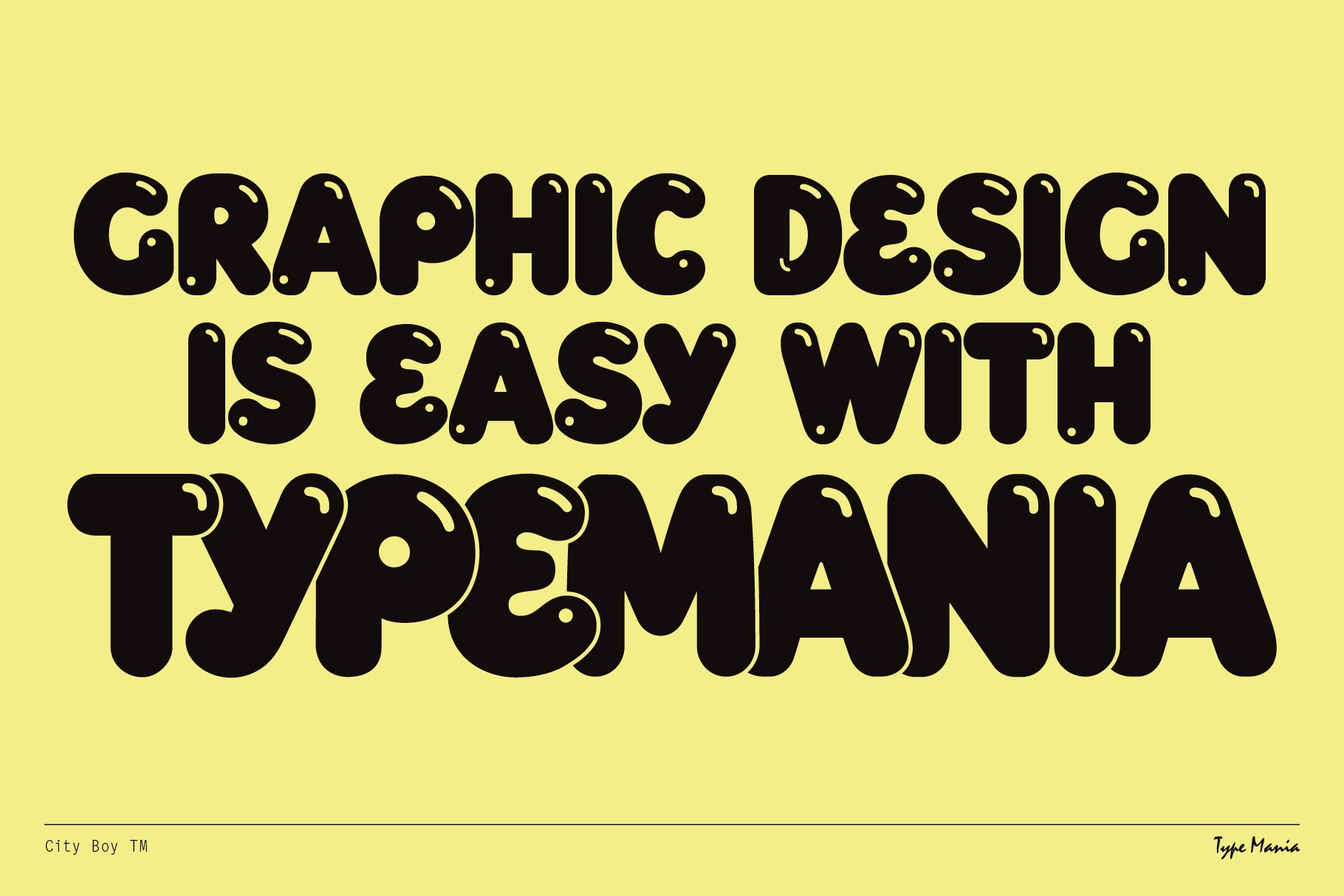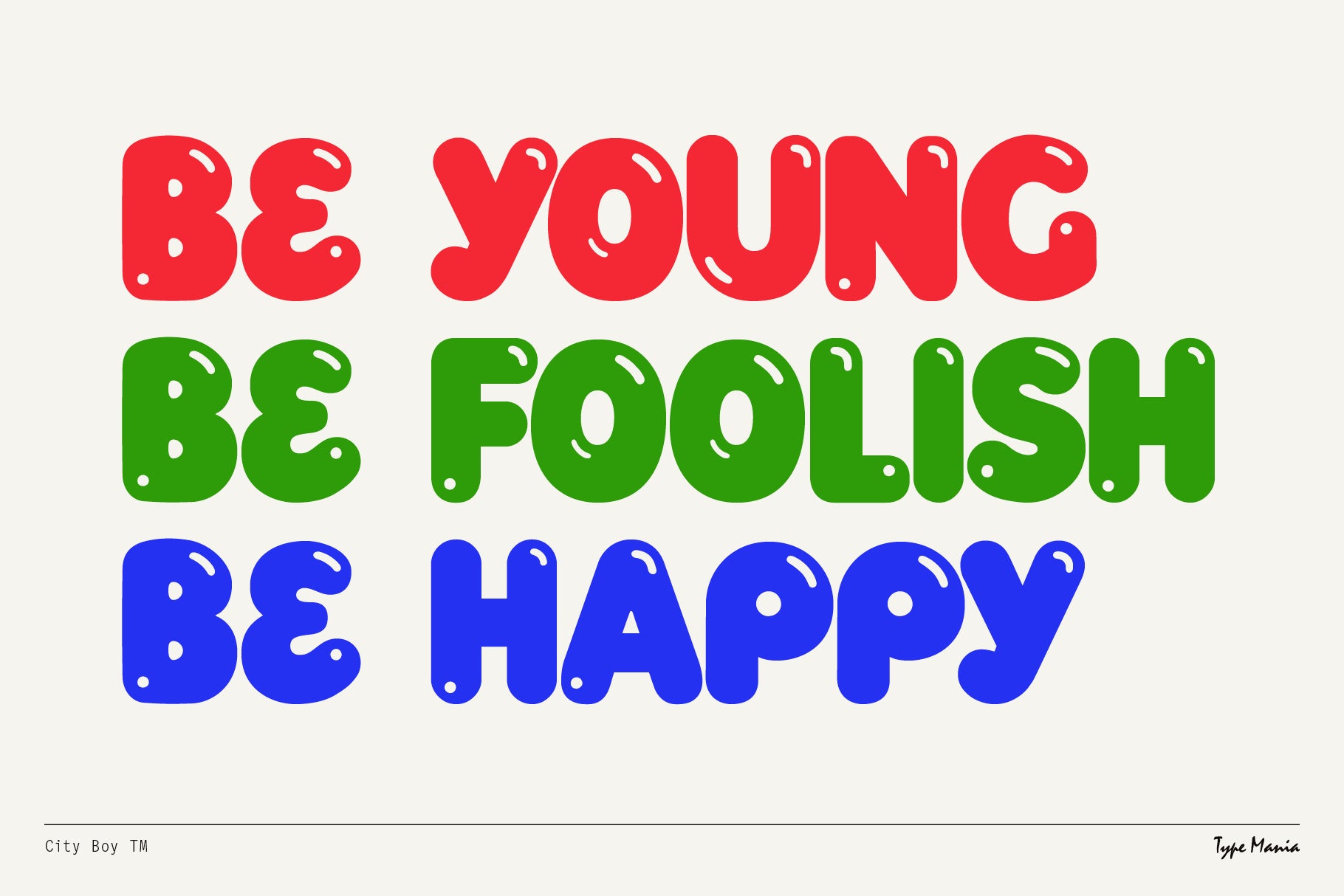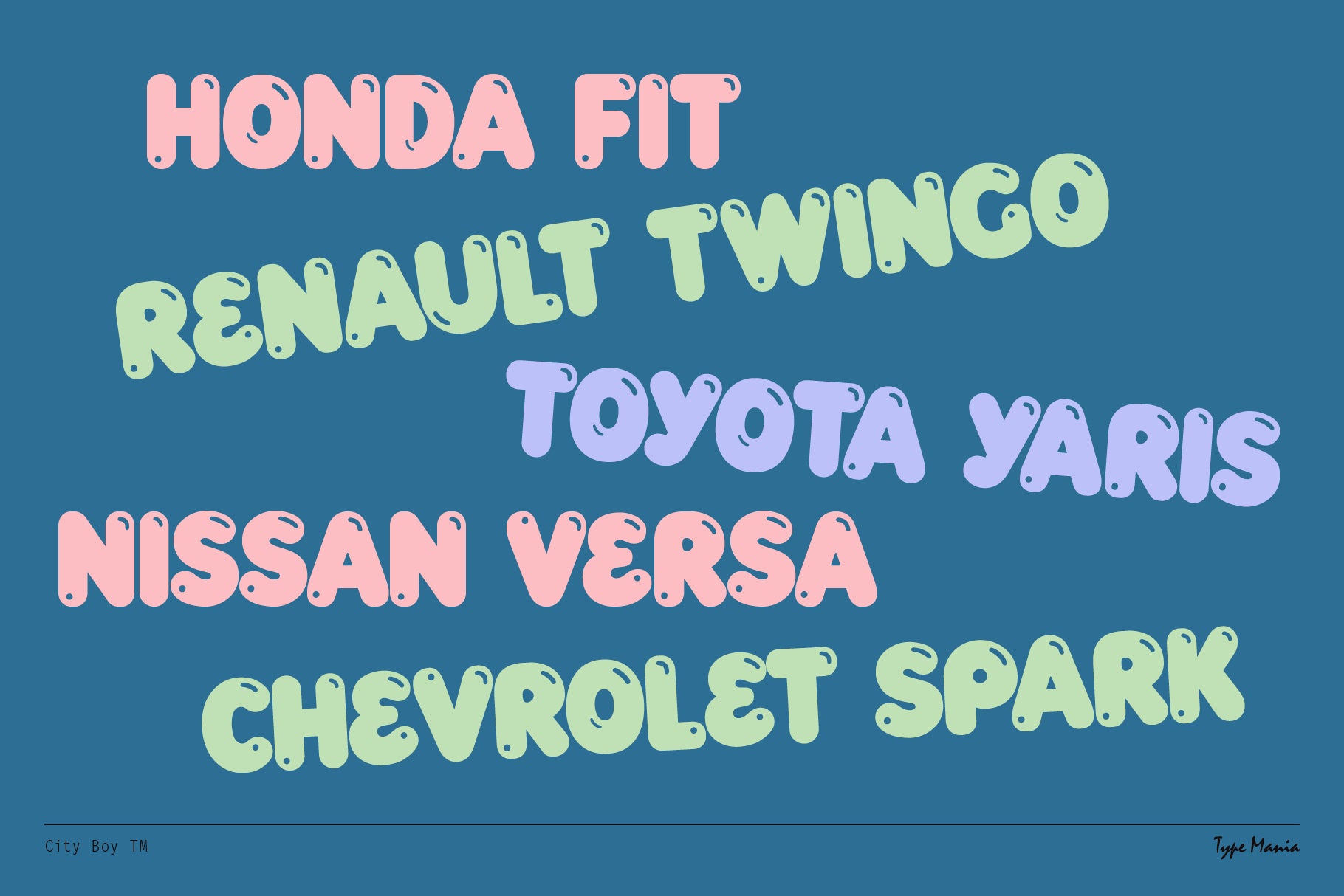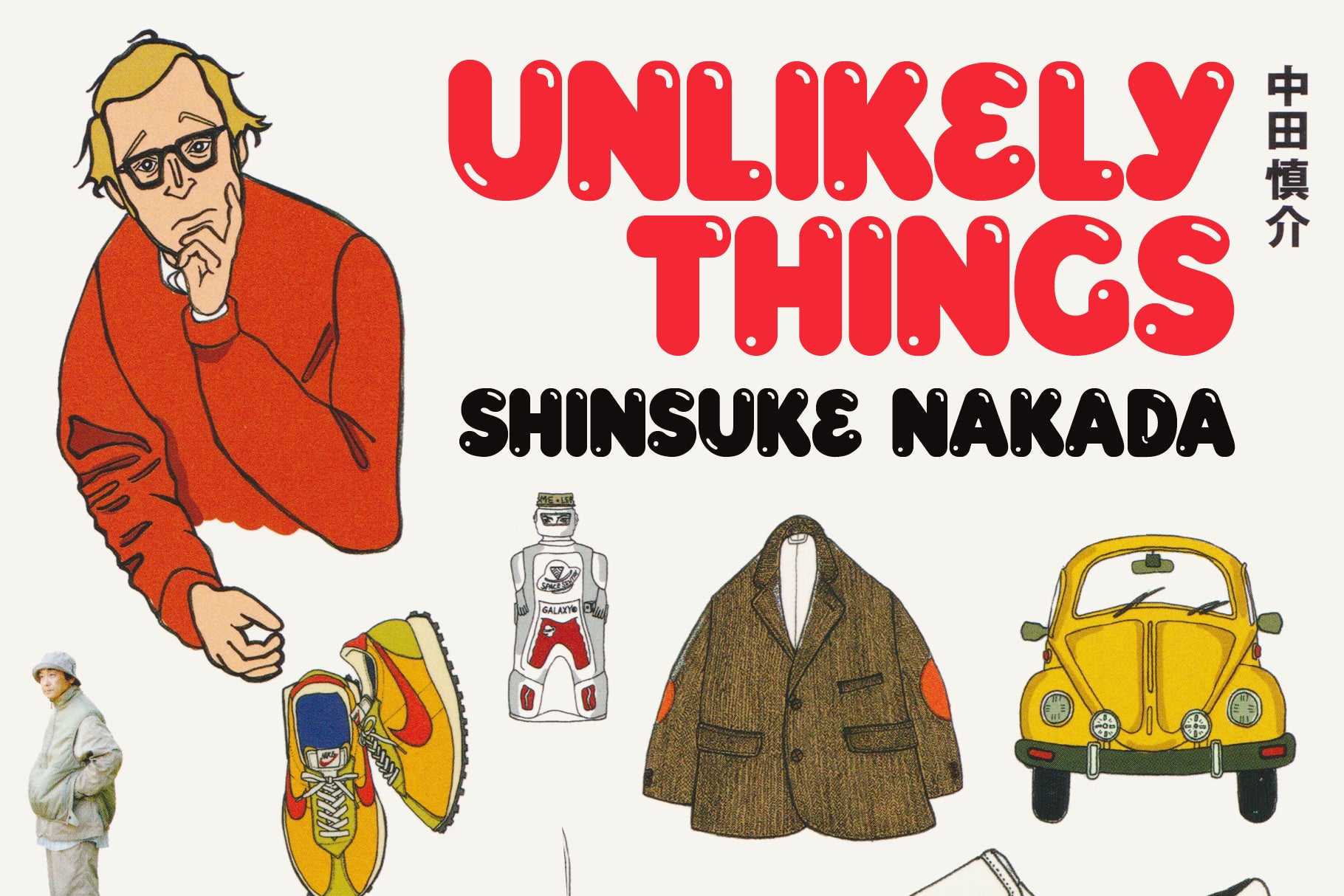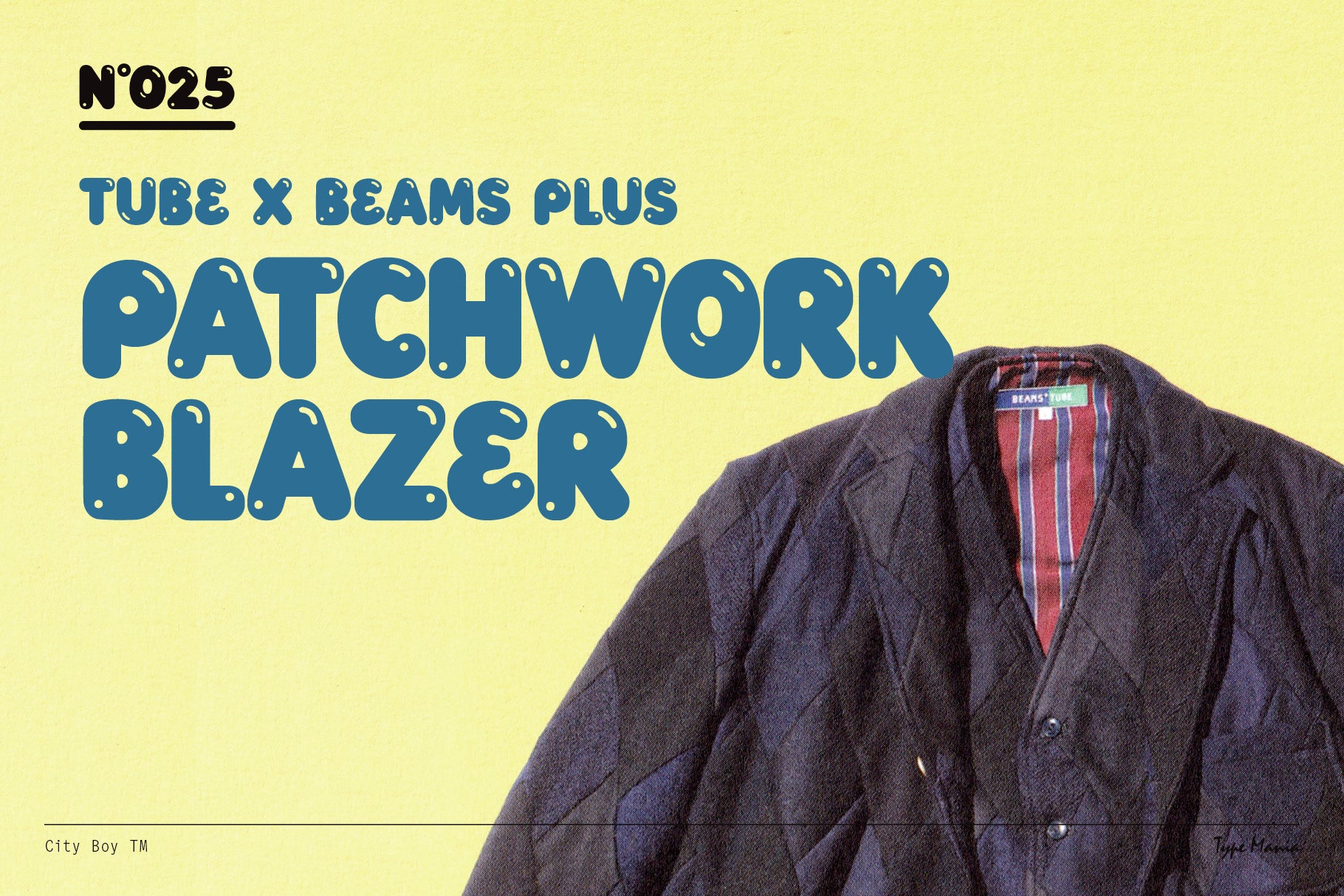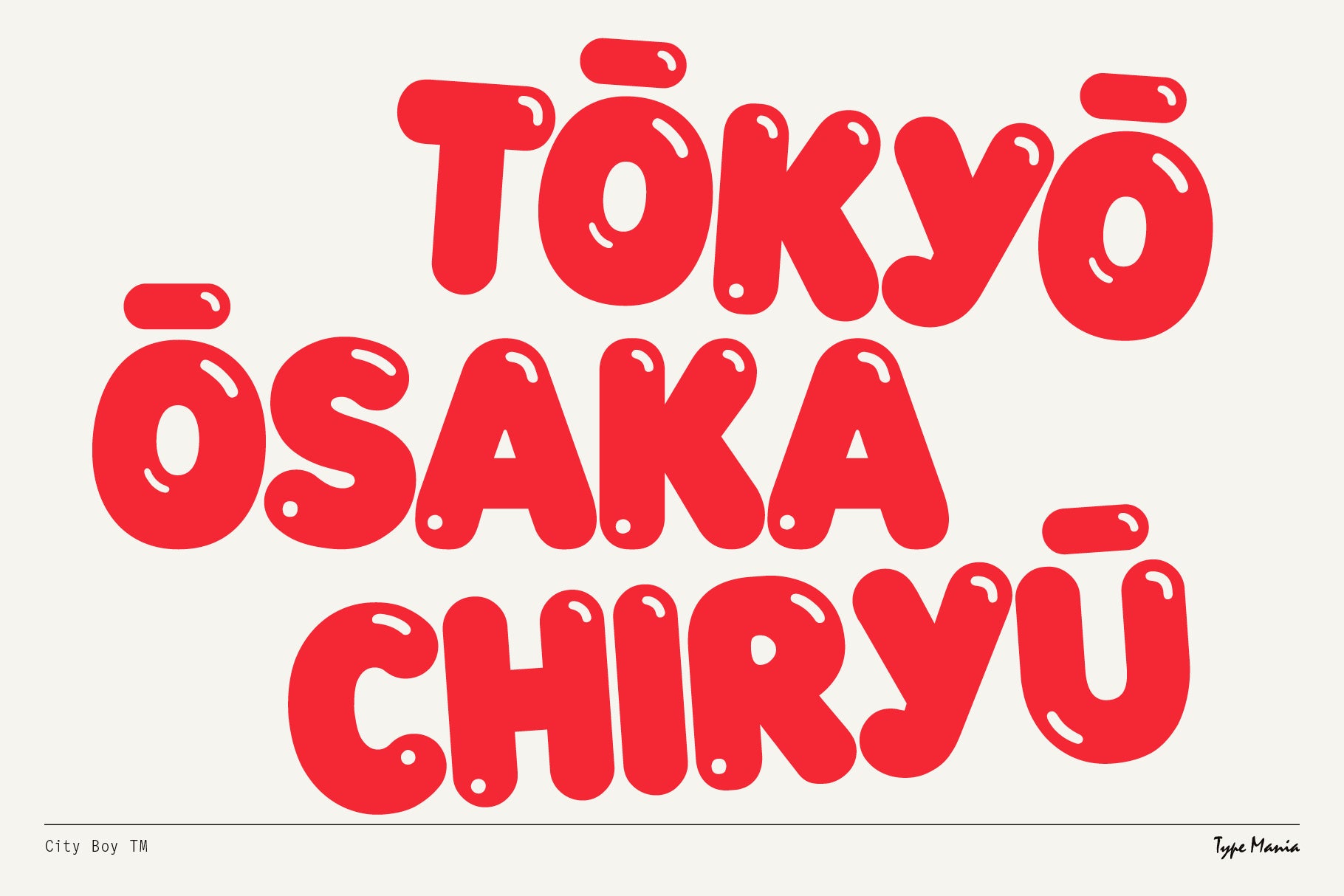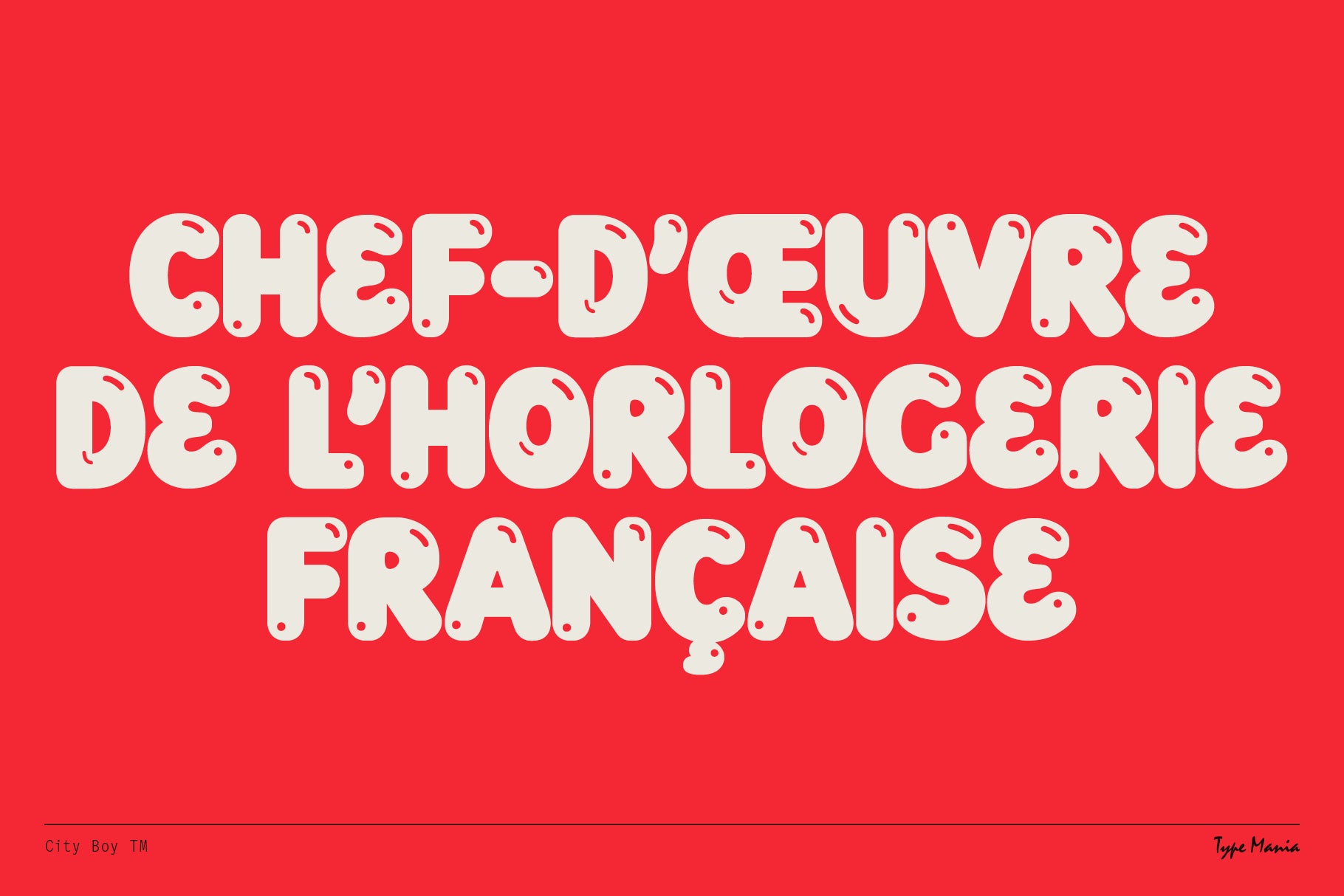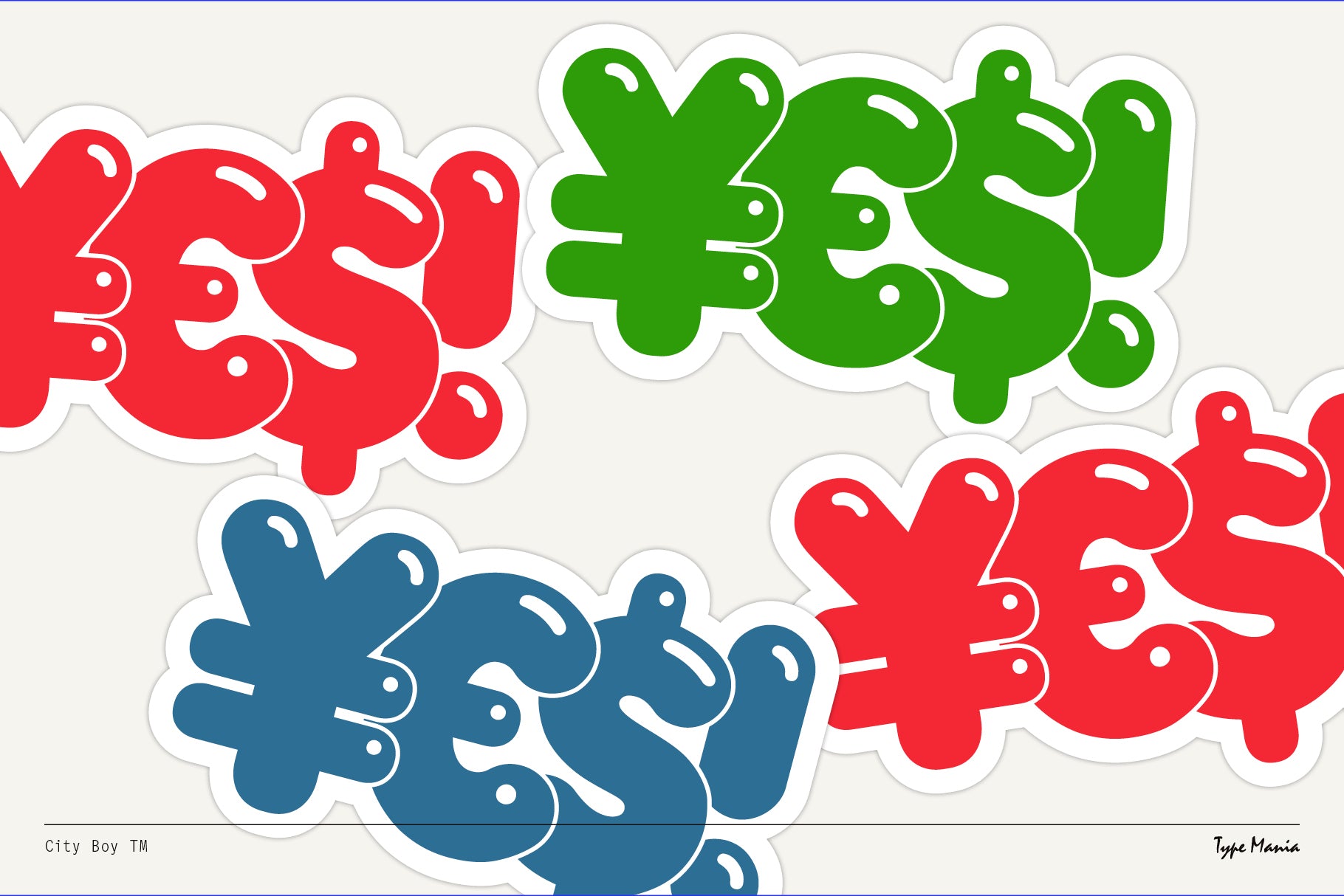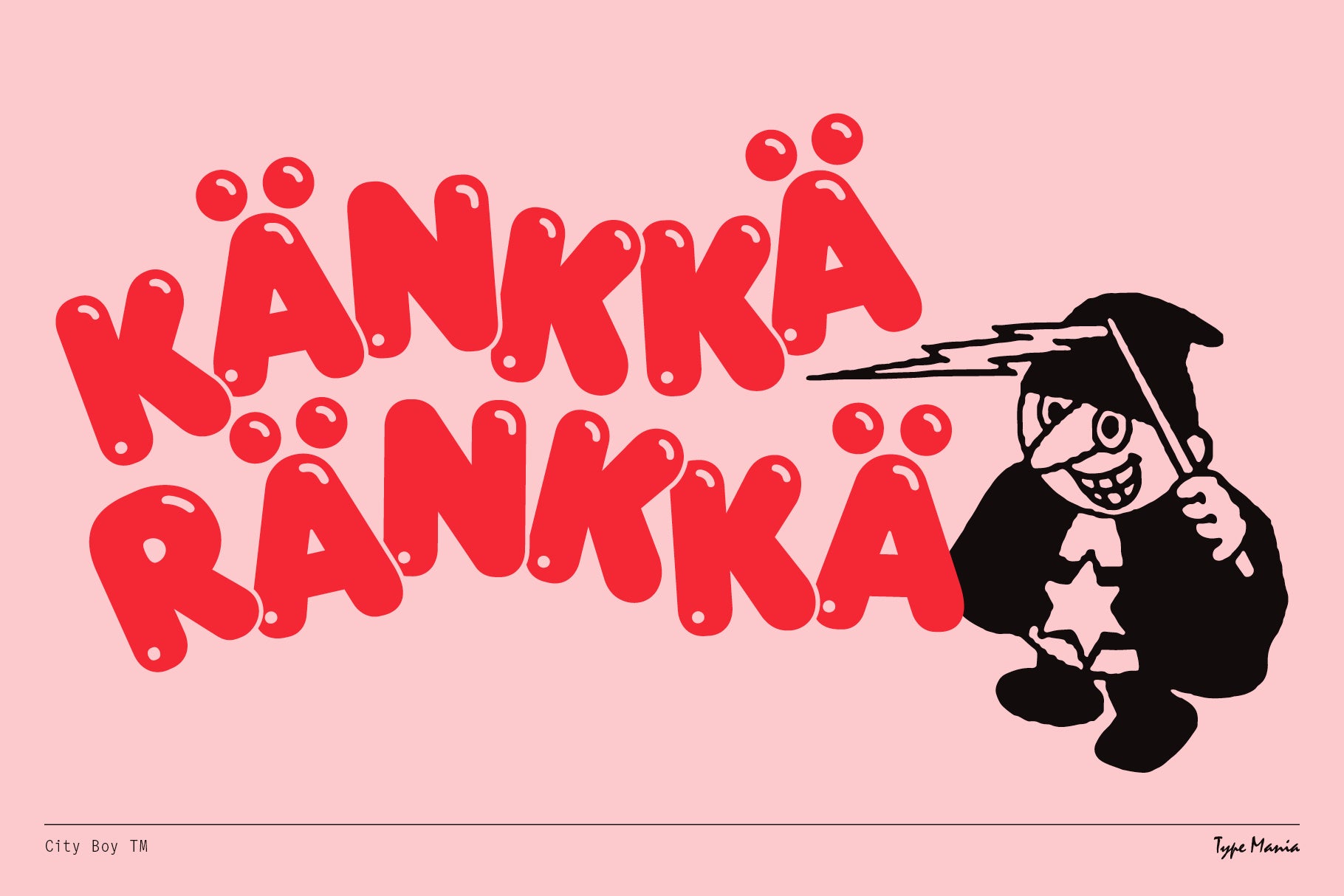
City Boy TM
Introducing City Boy TM. Inspired by the playful typography of Japanese fashion magazines, this bubbly font is your go-to choice for adding a touch of Tokyo chic to your designs. Whether you're designing a funky poster, crafting an eye-catching logo, or adding a pop of personality to your social media graphics, City Boy TM delivers style with a smile. Domo arigato ʃƪ˘ﻬ˘) ♡´